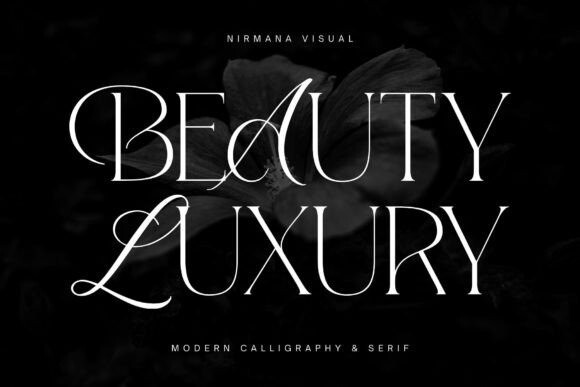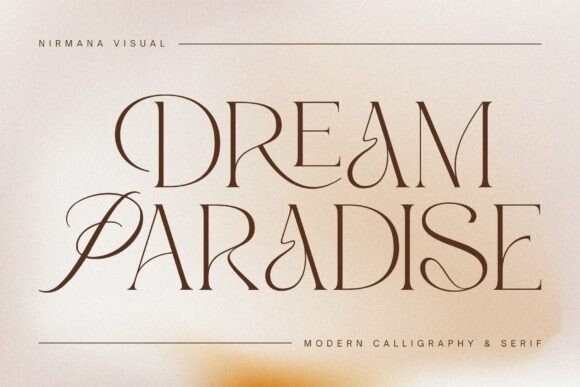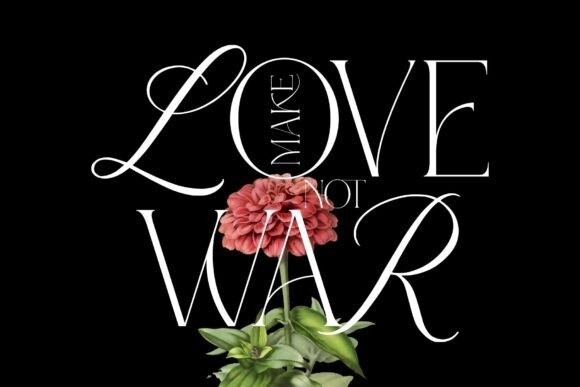
Beauty Luxury Font
Beauty Luxury is a contemporary display font that offers beautiful typographic harmony for a diversity of design projects such as logos, branding, social media posts, advertisements, product designs, and many more!